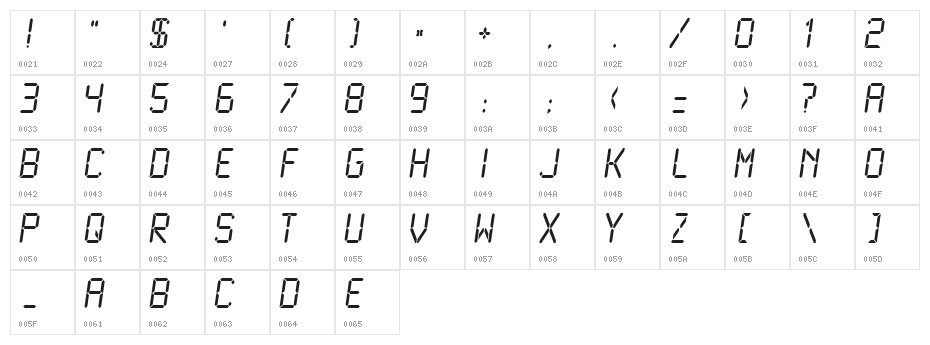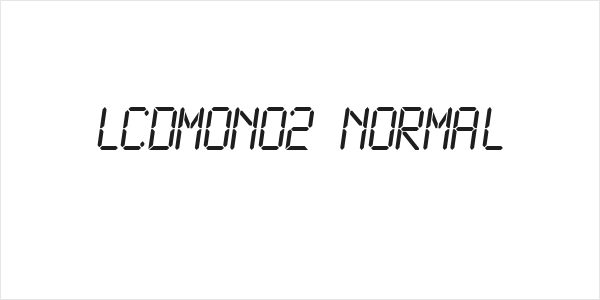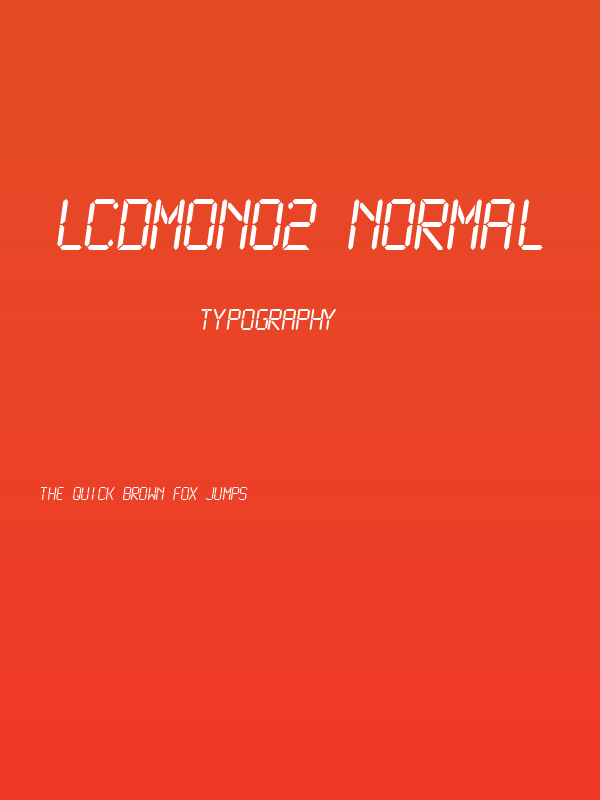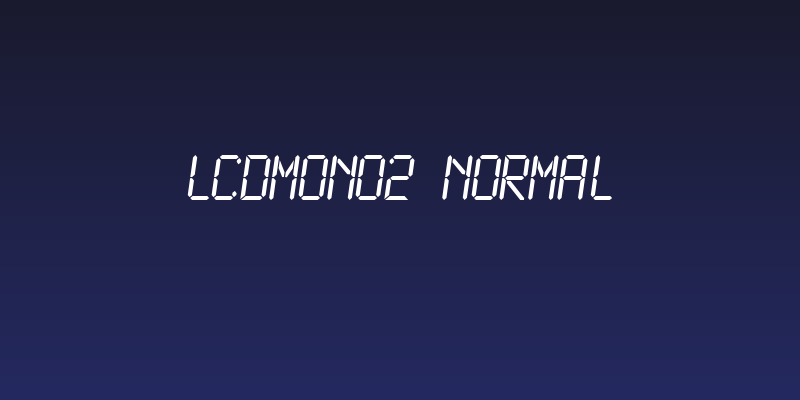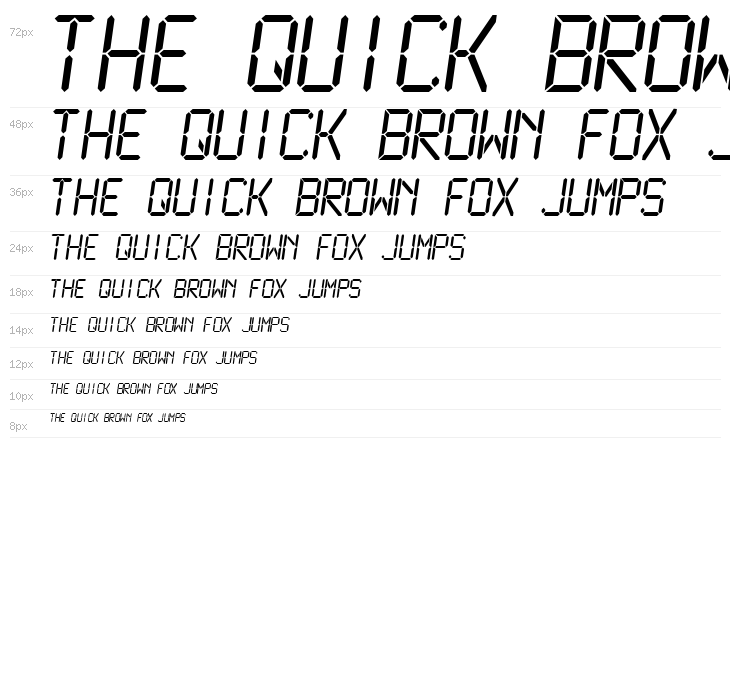
LCDMono2 Normal Font
| Область применения | Digital displays, Tech-themed projects, Retro designs |
| Рекомендуемые проекты | Ideal for digital clocks, tech-themed designs, retro video games, and electronic device interfaces. |